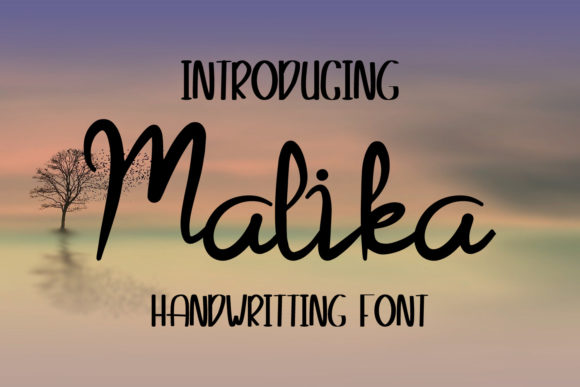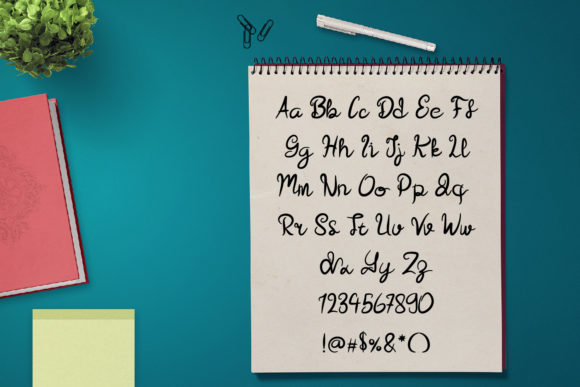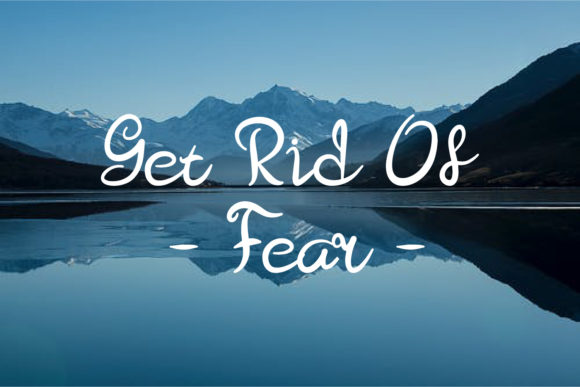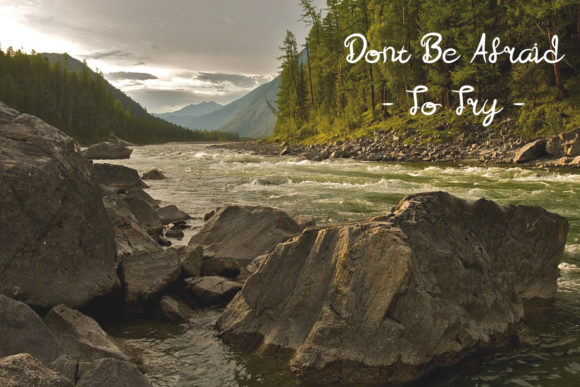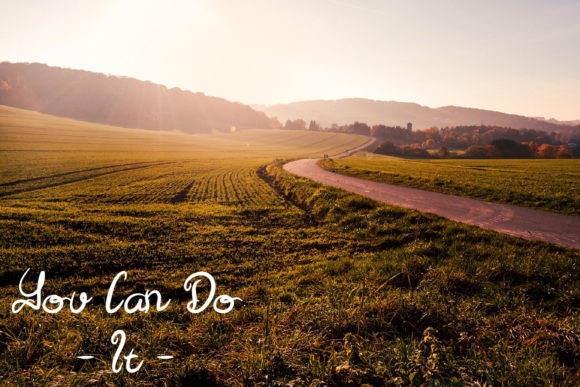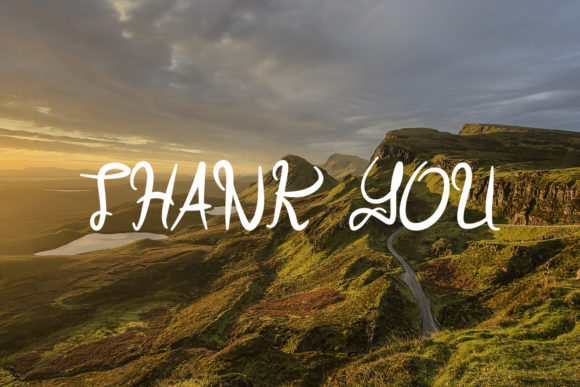
Malika Font
About Malika Font
Malika is a cute and friendly handwritten font. Playful and a little bit whimsical, this font is the ideal fit for all of your logos, branding, posters, and crafty DIY projects.